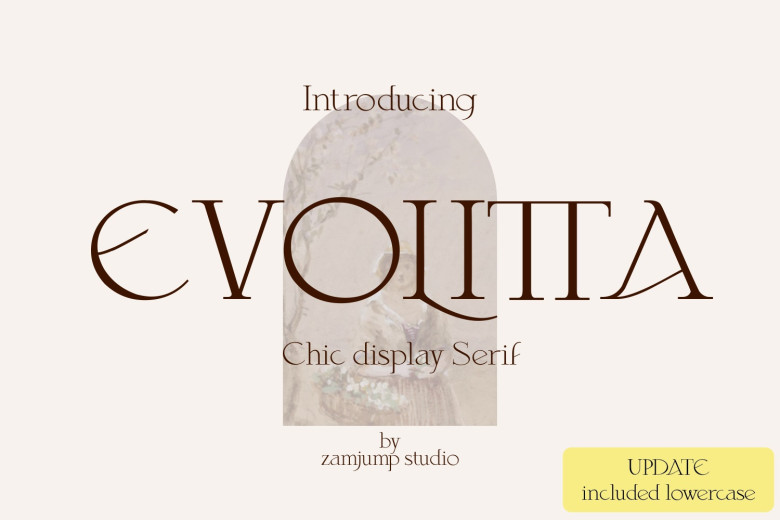
Evolitta Font
Evolitta is an elegant and chic serif design featuring beautiful contrasts. Perfect for classic and elegant themes, Evolitta makes a striking impression when used to design logos, quotes, professions websites or anything that requires an elegant yet chic style – from logos to quotes and websites for professionals alike.
Evolitta Serif Font